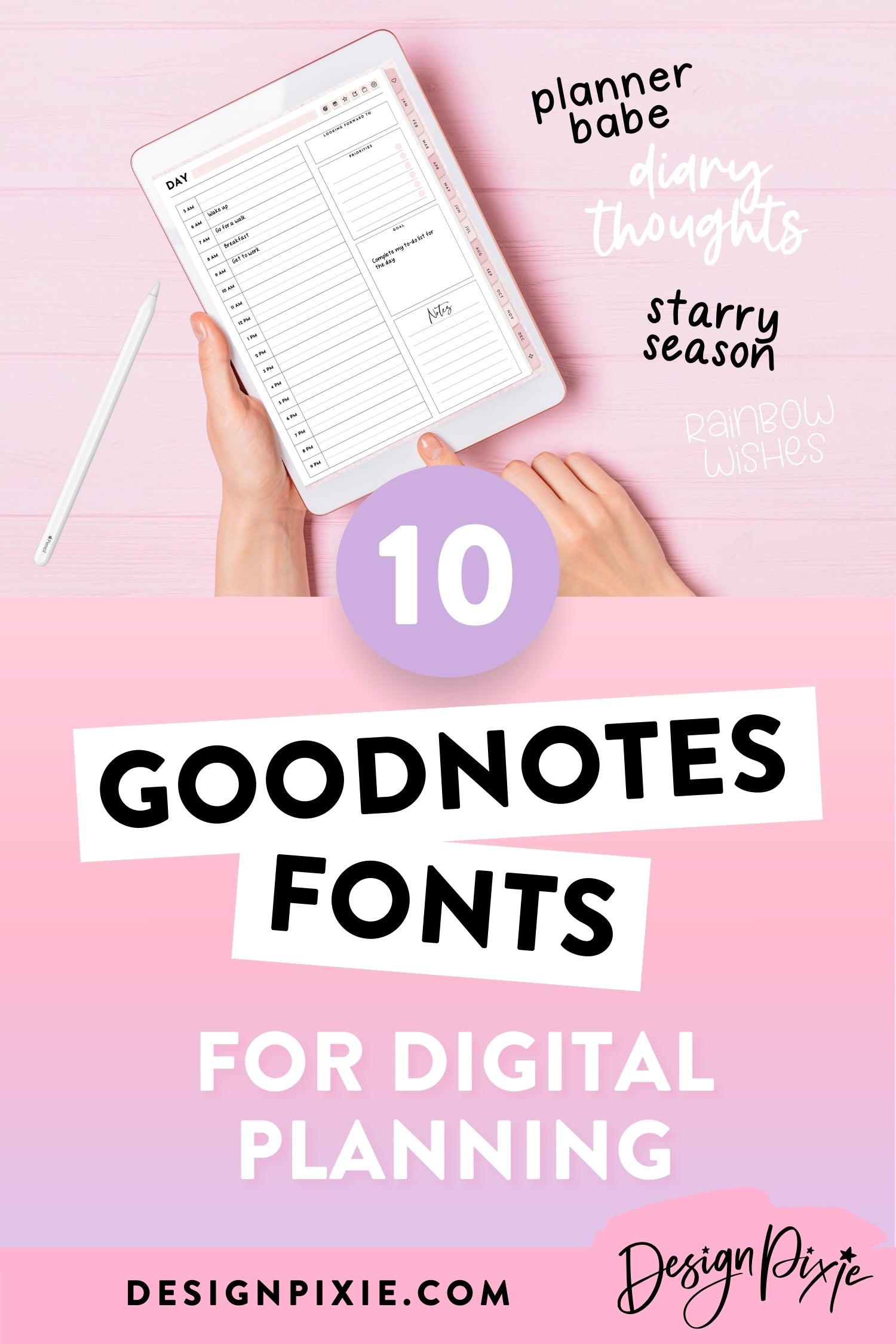
Goodnotes has quickly become a favorite among digital note-takers, planners, and creatives, and it’s easy to see why. With its easy to use design and powerful features, it makes staying organized feel like a breeze. But the real magic of Goodnotes lies in its ability to bring the warmth of handwriting into the digital world.
In this post, we’re sharing 10 super cute Goodnotes fonts that are perfect for digital planning. Whether you're looking to add a dash of style, a splash of fun, or a touch of personality to your planner, these fonts will help you elevate your digital planning game. Let’s dive in and explore how these fonts can transform your Goodnotes experience!
Best Goodnotes Fonts
Choosing the right font can transform your digital planning from functional to fabulous. With so many options available, it’s easy to find a font that perfectly matches your style and needs. Whether you're organizing your tasks, decorating your planner, or adding personal touches to your notes, the right Goodnotes font can make all the difference. From cursive styles to simple sans, each font brings its own unique charm to your digital pages.
Below, we’ve curated a list of 10 top Goodnotes fonts that are sure to inspire and elevate your planning experience. Dive in and discover your new favorites!
1. Planner Babe Font
2. Starry Season Font
3. Rainbow Wishes Font
4. Daisy Dreamer Font
5. In The Clouds Font
6. Diary Thoughts Font
7. Caramel Cupcake Font
8. Candy Sweets Font
9. Honey Font
10. Dainty Font
How to Use Goodnotes Fonts
Bringing the magic of handwriting fonts to your Goodnotes app is easy. Here’s how:
Customize Your Text: With your new fonts imported, you can start using them in your notes. Play around with different sizes, colors, and alignments to find what works best for your content. Handwriting fonts are especially lovely for all the little notes you write.
Pair Fonts Creatively: To make your notes even more magical, try pairing different handwriting fonts together. For instance, use a simple handwritten font with a more cursive font style. This contrast can make your notes more dynamic and easier to navigate.
Inspiration for Using Handwriting Fonts
Handwriting fonts are incredibly versatile, and there are so many ways to use them in Goodnotes. Here are a few ideas:
- Digital Planners: Use handwriting fonts to create beautifully organized planners. Label your sections, create to-do lists, and add motivational quotes in your favorite handwriting style.
- Journaling: Make your digital journal feel more personal with handwriting fonts. They can add a sense of authenticity to your entries and make your reflections more engaging.
- Study Notes: Improve your study habits by using different handwriting fonts to organize your notes. Use one font for definitions, another for examples, and a third for key points.
- Interactive Notebooks: Create interactive digital notebooks where you can combine handwritten notes, images, and diagrams. Handwriting fonts can help tie everything together and make your notes look cohesive.